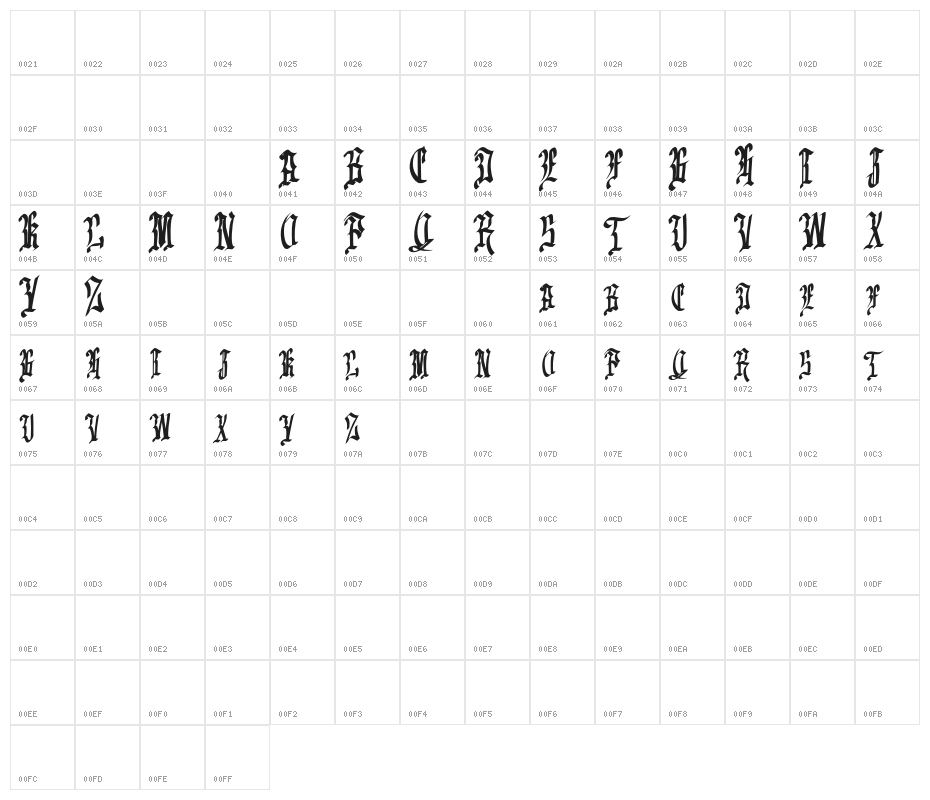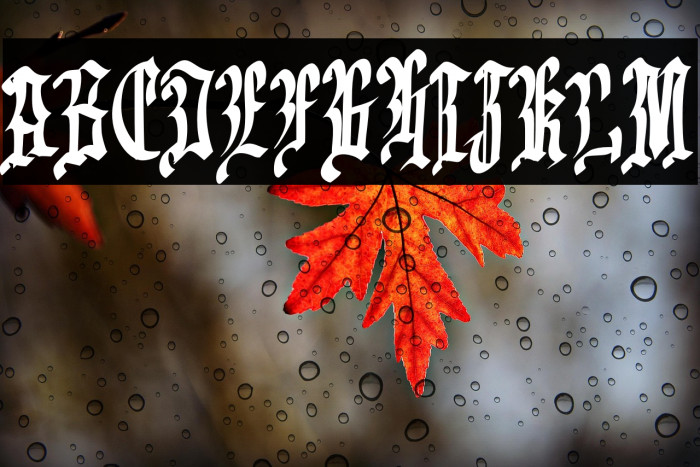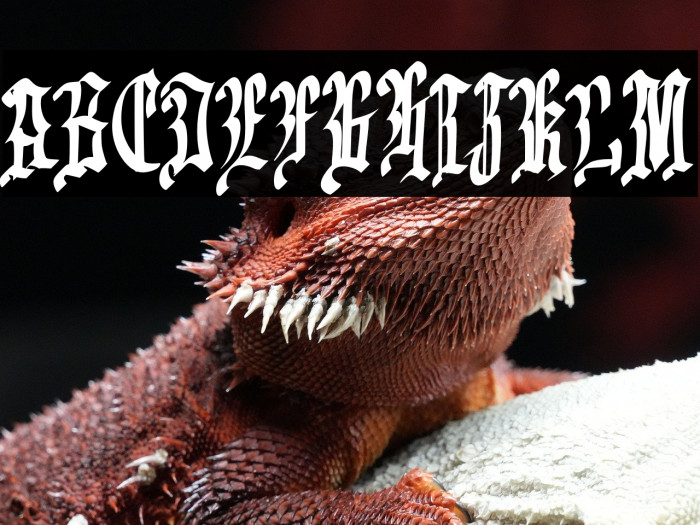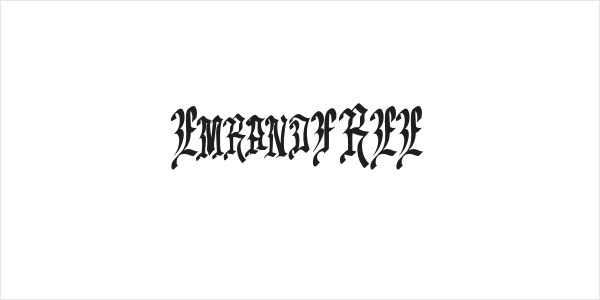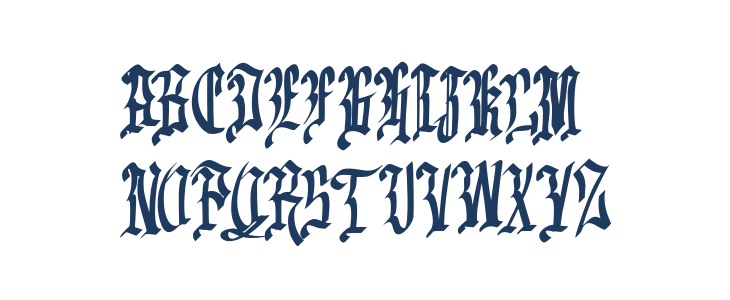
EmrandFREE Font
EmrandFREE Description
This font features a bold and intricate blackletter style, characterized by its sharp, angular lines and dramatic flourishes. The letters are highly stylized, with a strong emphasis on vertical strokes and pointed serifs, giving it a gothic and medieval appearance. The uppercase and lowercase letters maintain a consistent design, with the uppercase being more elaborate. The numbers and special characters follow the same ornate style, making the font suitable for decorative purposes. Its historical and artistic flair makes it stand out, ideal for projects that require a touch of elegance and tradition.
| Use Case | Logos, Headlines, Decorative text |
| Proposed Projects | Ideal for certificates, invitations, logos, and branding that require a traditional or historical aesthetic. |